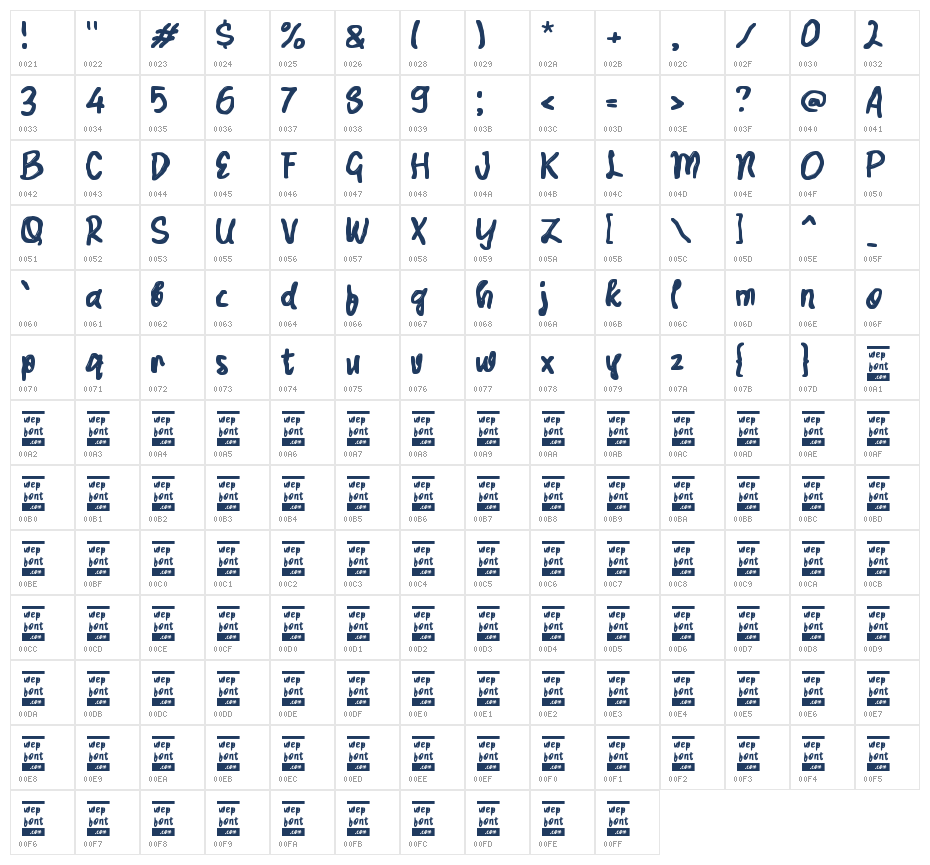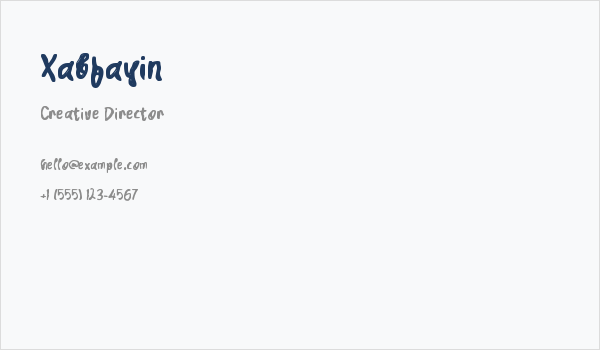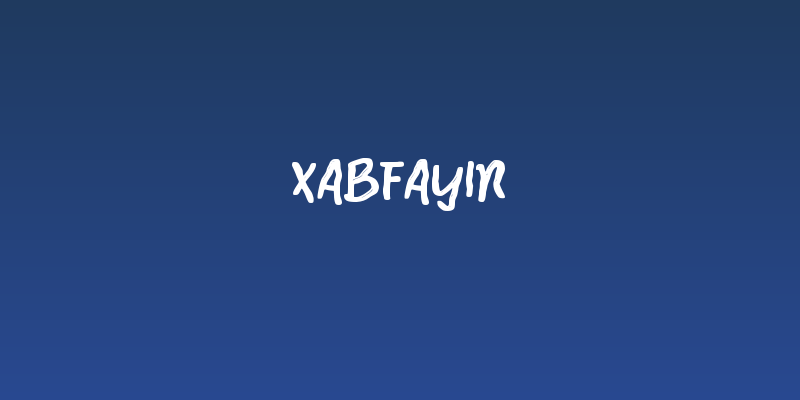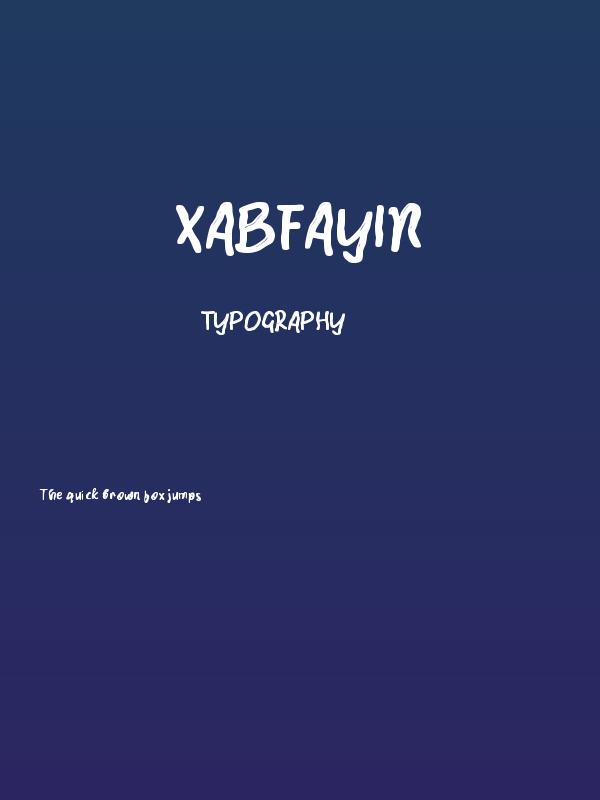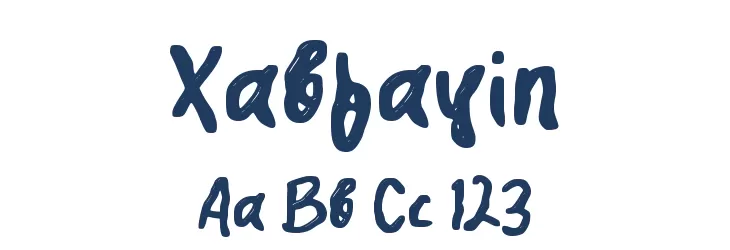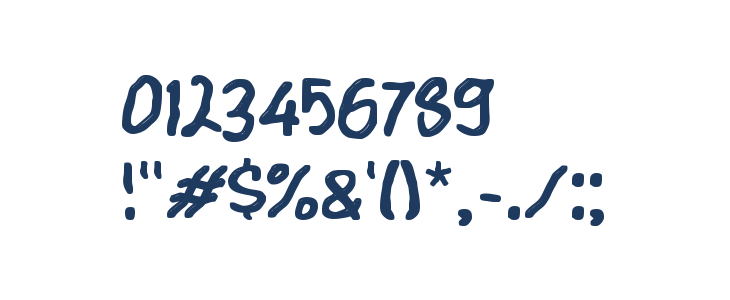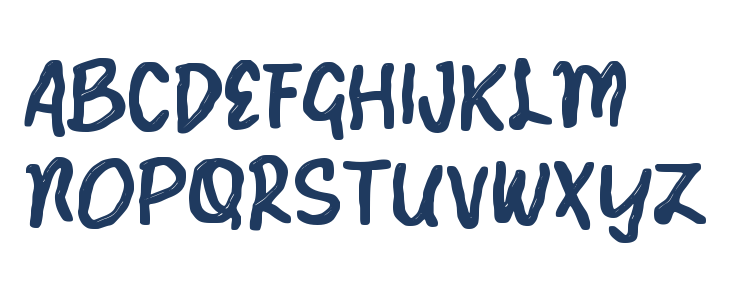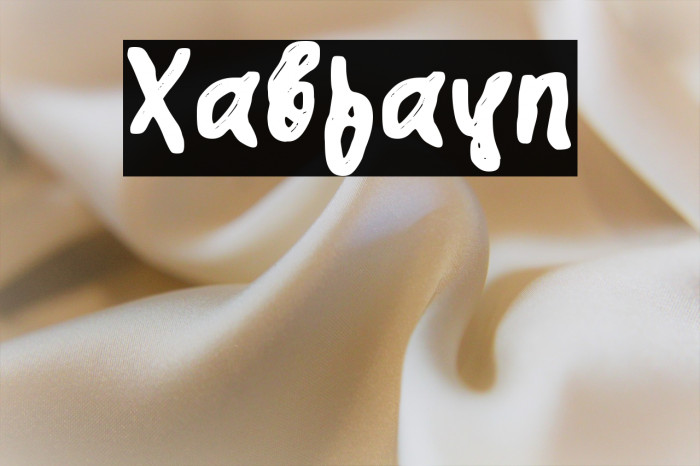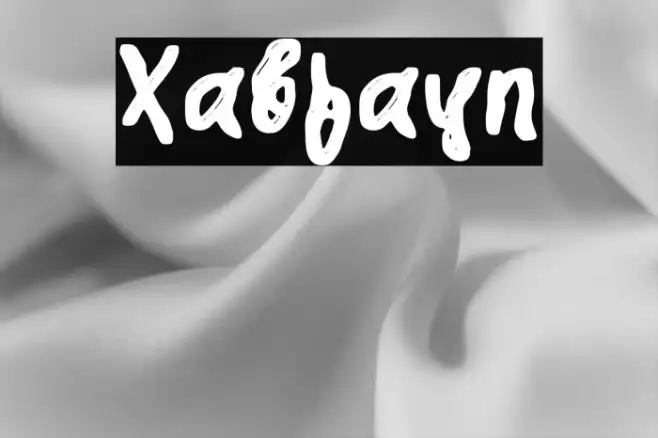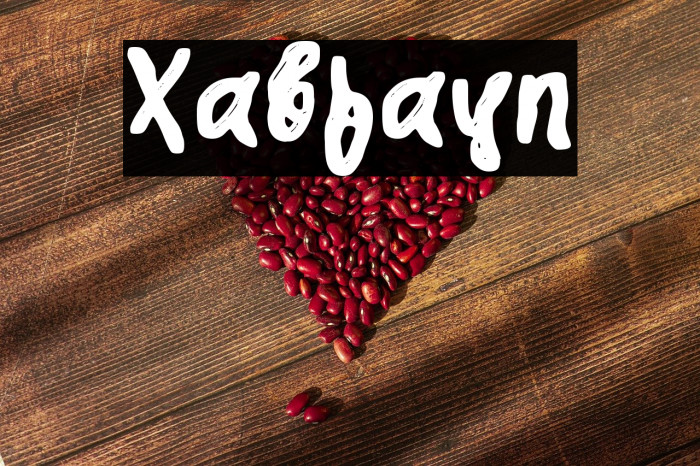
Xabfayin Font
Xabfayin Description
A casual, handwritten style font with a playful and informal appearance, featuring slightly irregular strokes and a brush-like texture.
| Overall Style | Casual, Playful, Informal |
| Use Case | Headlines, Body text, Logos, Creative projects |